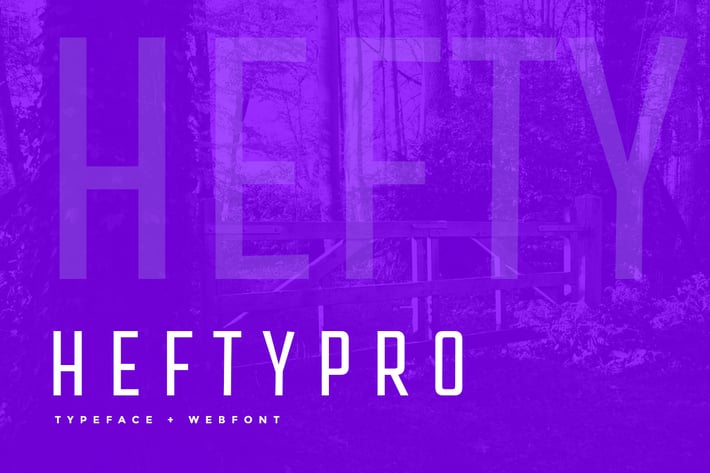
Hefty Pro Display Typeface + WebFont
Hefty Pro Display Typeface
Hefty Pro is a modern and decorative display typeface, Hefty Pro can be used for Creative and Decorative Typography Designs.
Font Designed and Crafted by Adam Johns & Errick (Old Font Factory 2009 ), Distributed by Webhance Studio.